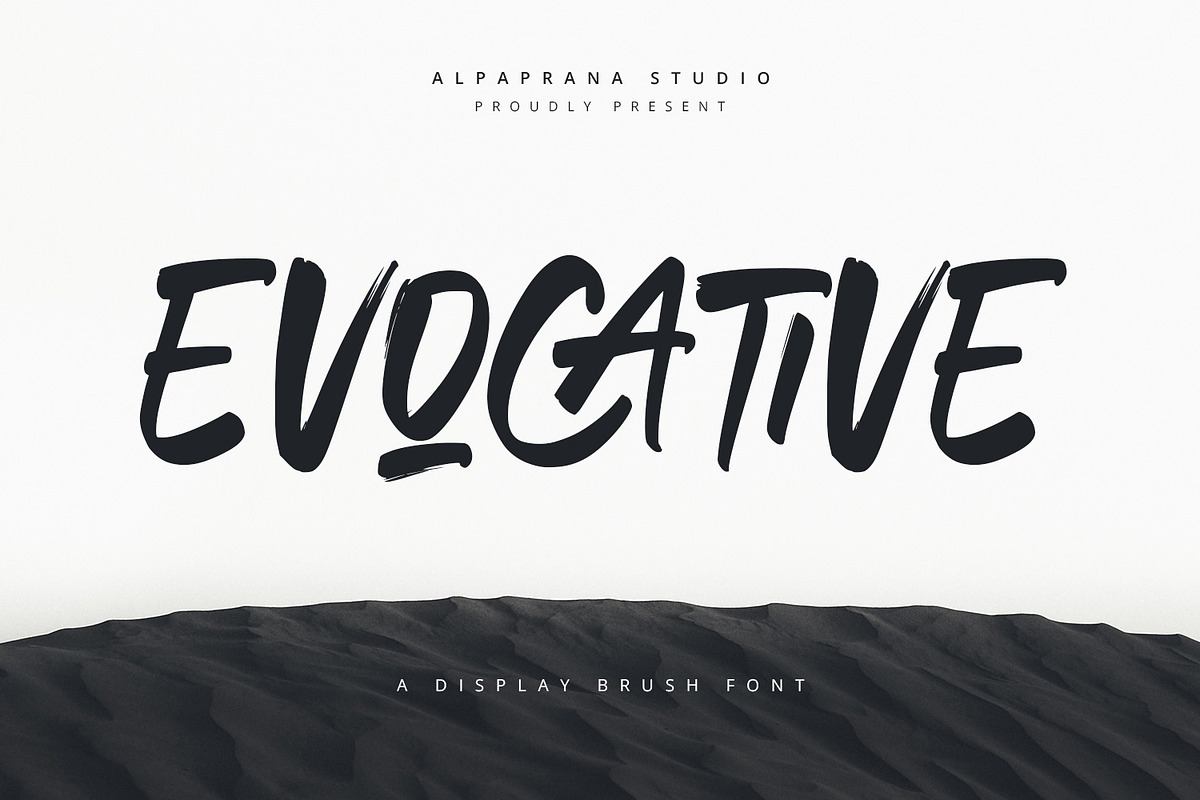
Evocative - Brush Font Free Download
Evocative – Brush Font Free Download
Evocative – Brush Font Free Download is a dynamic and expressive handwritten typeface that mimics the natural flow of brush strokes. With its bold, fluid lines and artistic texture, this font is perfect for branding, posters, social media graphics, album covers, and any design that needs a creative, personal touch.
Evocative – Brush Font Free Download delivers both sophistication and energy, making it ideal for projects that aim to convey raw emotion and movement, from fashion to event promotions. Its bold and flowing brush style is versatile, working well for both small and large-scale designs.